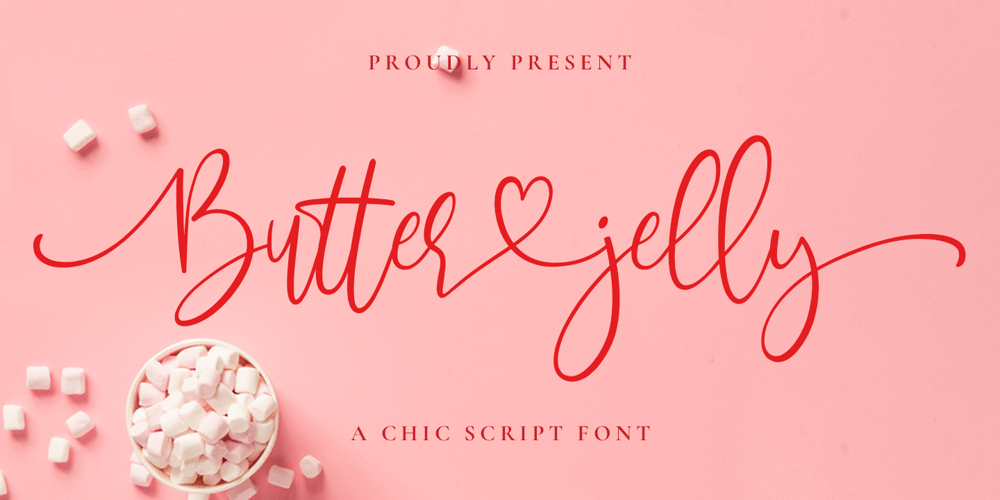
Butter Jelly Font Family was designed by Hamzah Muhamad Ihsan and published by Typesthetic Studio. Butter Jelly contains 1 styles and family package options. Butter Jelly is a modern calligraphy font with handwritten, sophisticated flows. It is full of hearts and glyphs. With exaggerated strokes and a bouncy baseline, Butter Jelly is perfect for logos, wedding stationery, cards, gift designs, photography, watermark, product packaging and handwritten quotes.